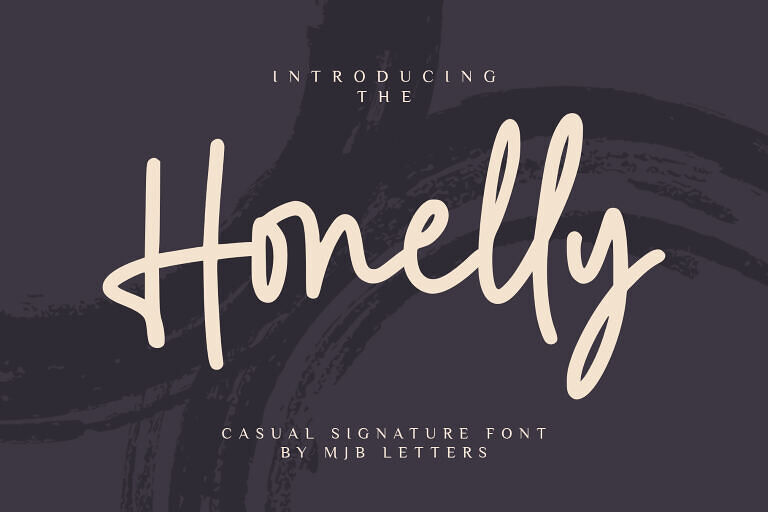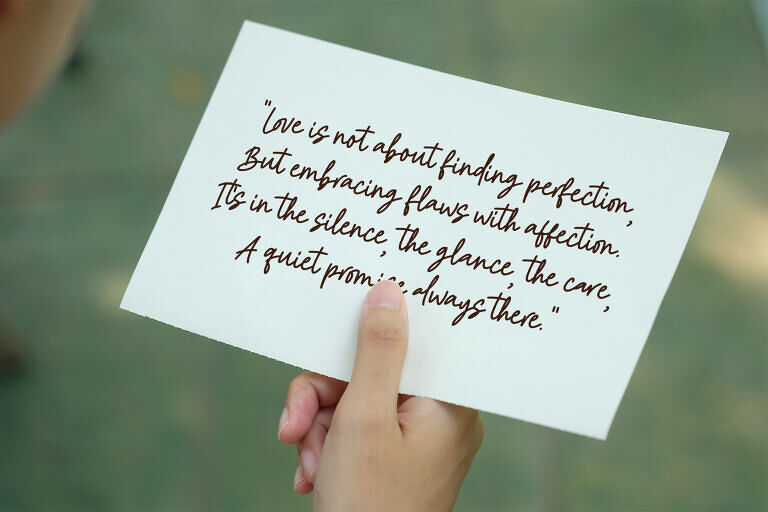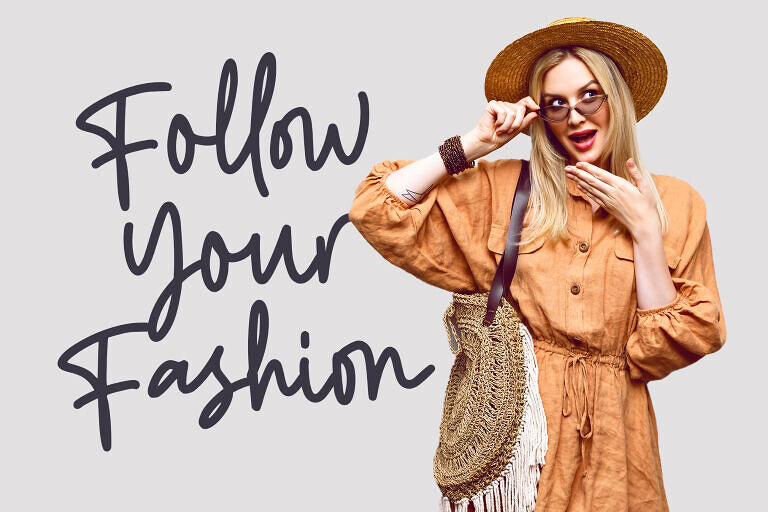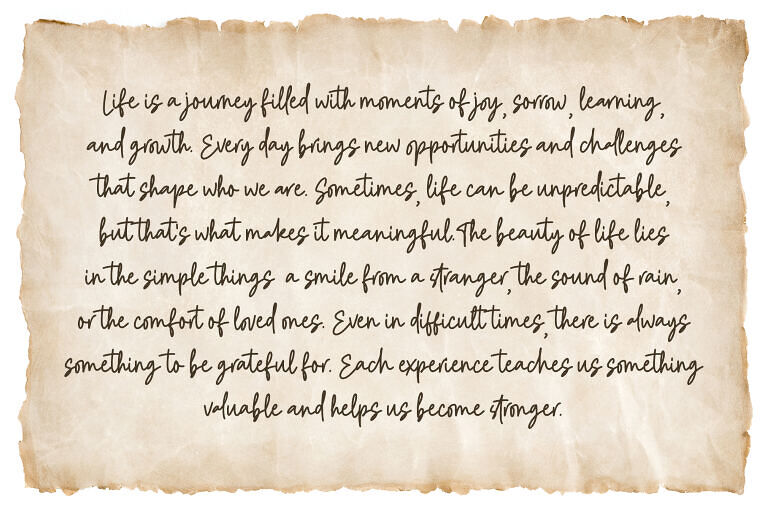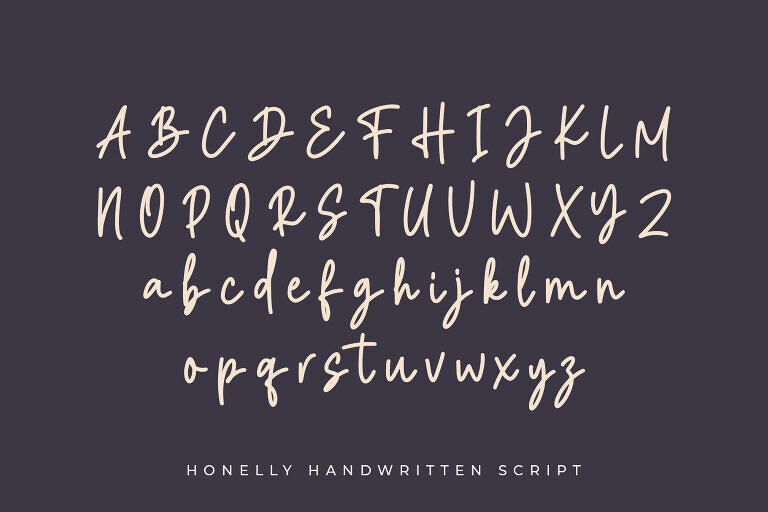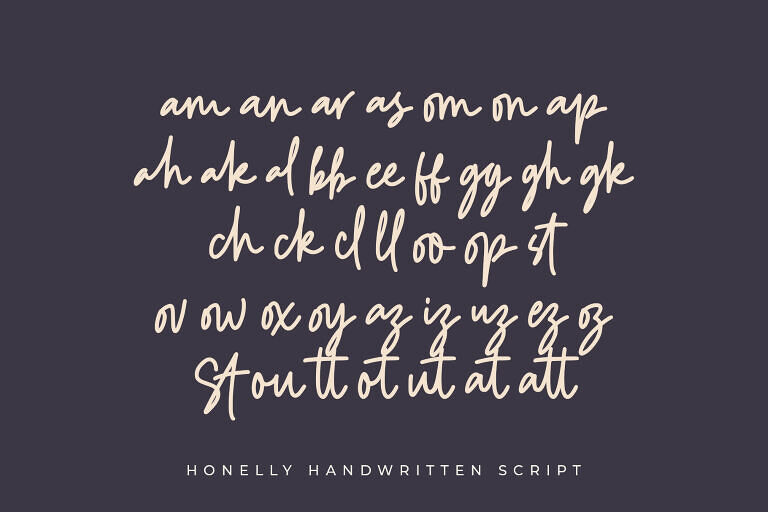
Introducing Honelly, a casual yet confident signature font that blends natural flow with bold strokes. Designed to mimic the effortless charm of authentic handwriting, Honelly brings a fresh and personal touch to your creative projects.
With its bold yet smooth appearance, this font is ideal for branding, logos, packaging, wedding invitations, photography signatures, quotes, and modern editorial layouts. Each letter is crafted to stand out while remaining harmonious in composition — striking a perfect balance between casual elegance and expressive confidence.